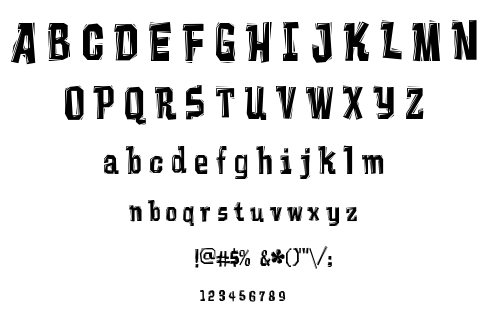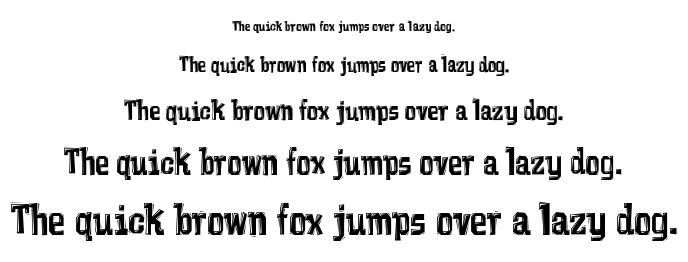
Vademecum is a linocut font if by lino, you mean computer mouse. It’s a computer mouse cut font. Don’t forget to read the files inside the zip for details. Updated in 2012.